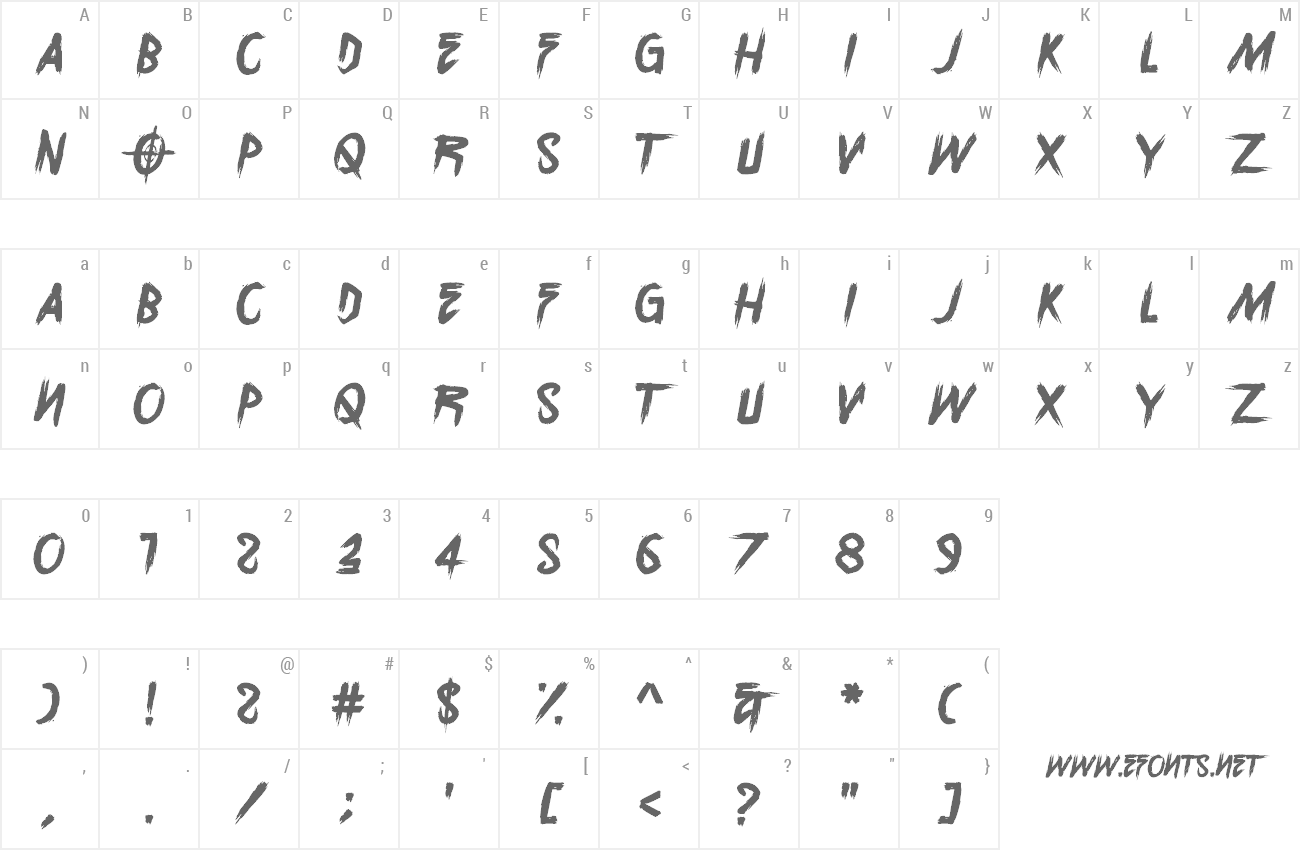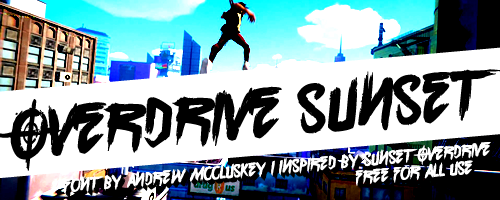
| Font name: | Overdrive Sunset |
Fontified version of Insomniac Games' original Sunset Overdrive logo. https://www.insomniacgames.com/games/sunset-overdrive/ Please note that I do not recommend using it for anything beyond Sunset Overdrive fan stuff - this is what it's intended for! |